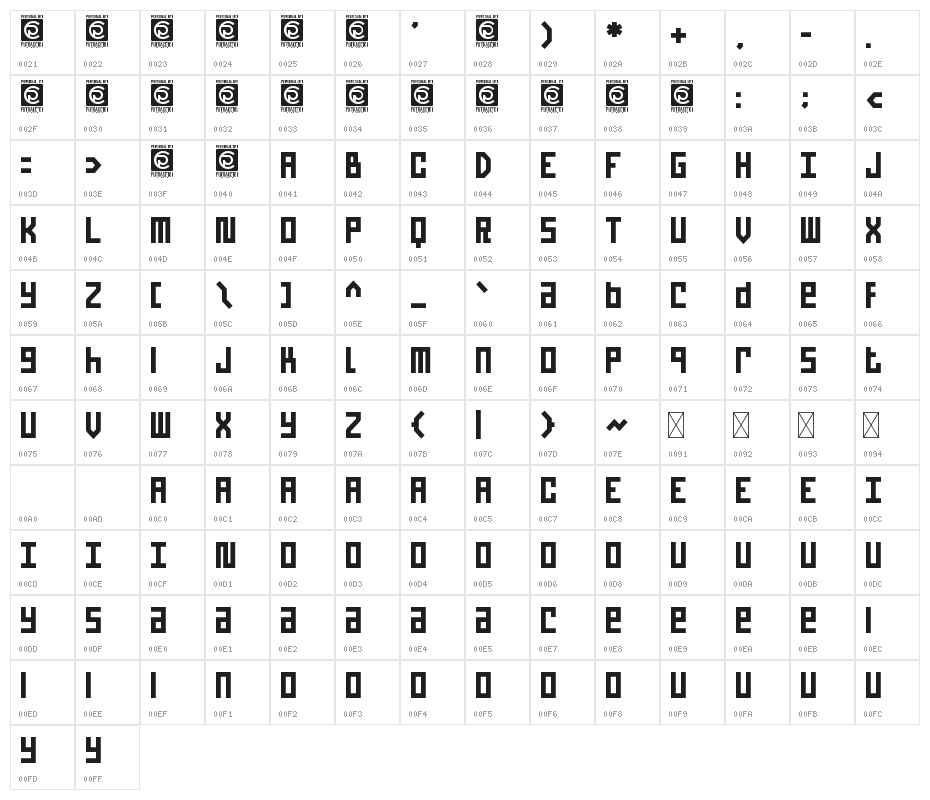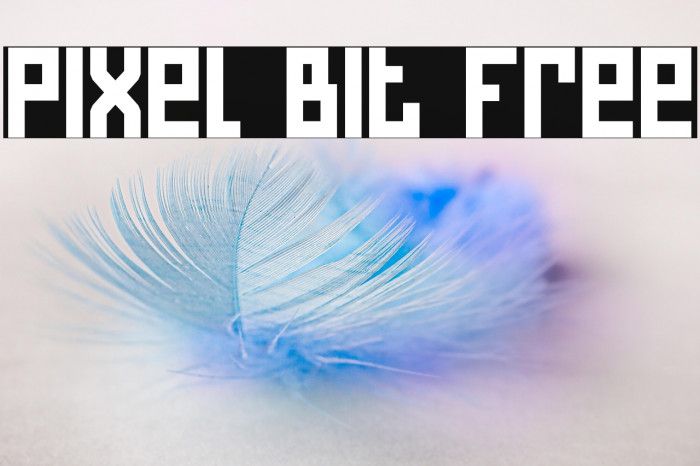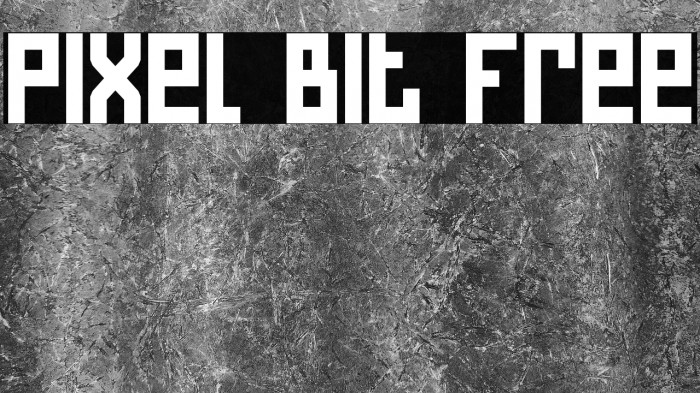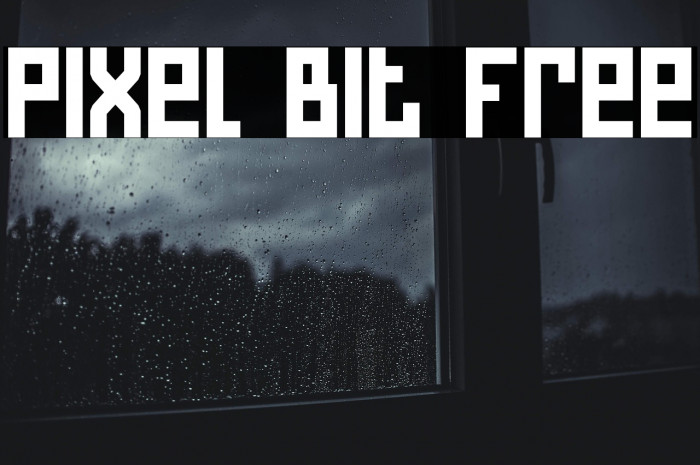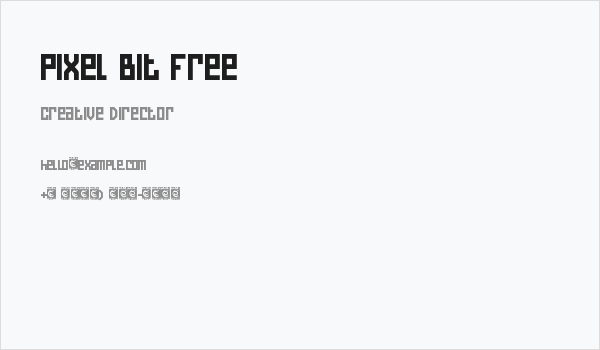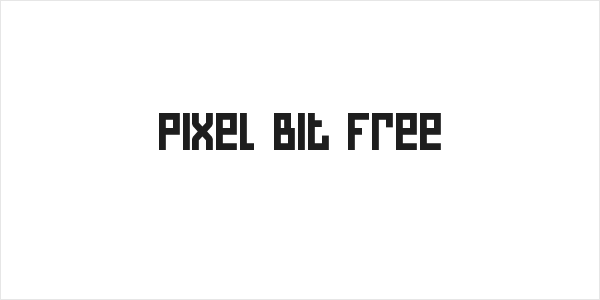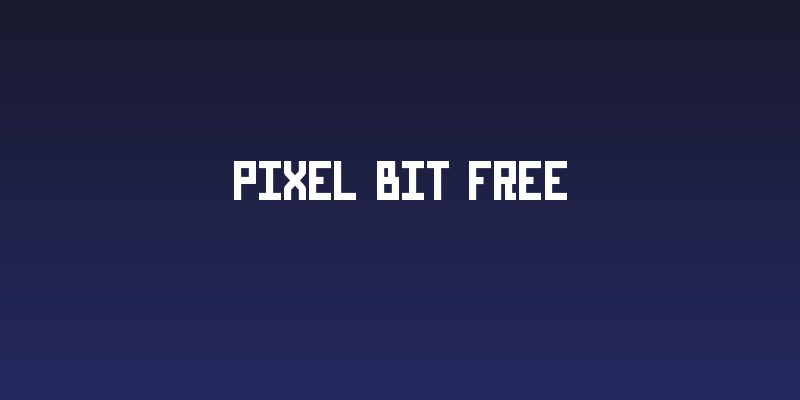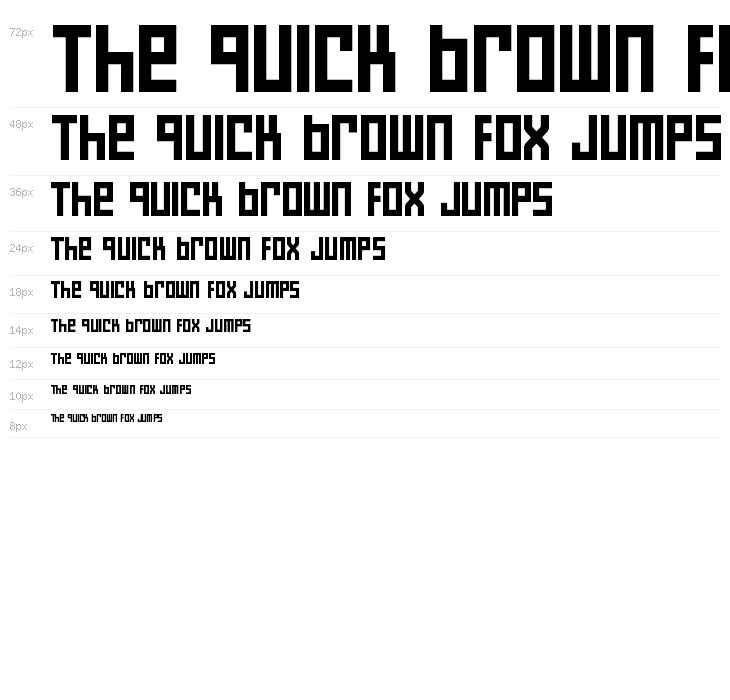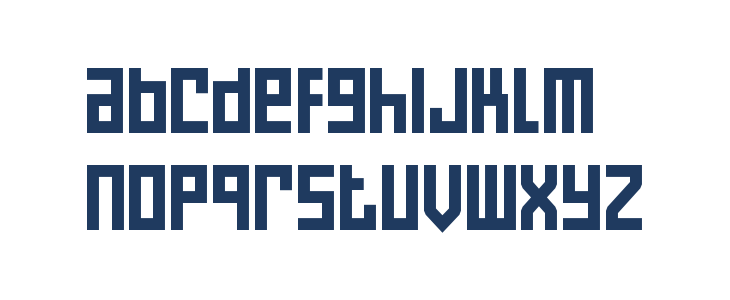
Pixel Bit Free Font
Pixel Bit Free Description
This font features a bold, geometric design with a distinctly digital and pixelated aesthetic. The characters are constructed with sharp, angular lines and consistent stroke widths, giving it a blocky and robust appearance. The uppercase and lowercase letters maintain a uniform height, enhancing its modern and structured look. The numerals and special characters follow the same design principles, ensuring a cohesive style throughout. This font is ideal for projects that require a futuristic or tech-inspired theme, offering a striking visual impact with its bold presence.
| Use Case | Logos, Headlines, Posters |
| Proposed Projects | Ideal for video game graphics, tech branding, digital art, and futuristic designs. |